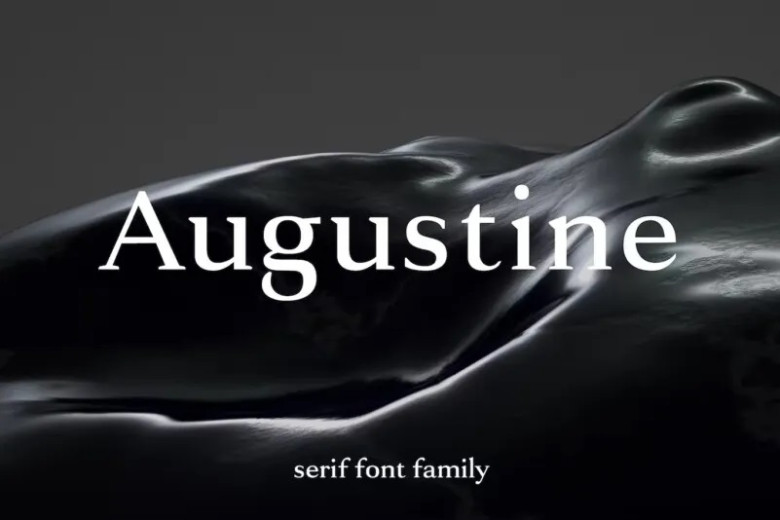
Augustine Font
Augustine is a strong yet elegant typeface in the roman-serif tradition. The whole family is equally useful for titles, captions, and body text; there is no need to search for other fonts when using it. This font family includes all Latin characters, numbers, special characters, and punctuation artworks. There are six lined faces in Augustine OTF format: three regular weights and three italics.
Augustine – A Strong Serif Typeface